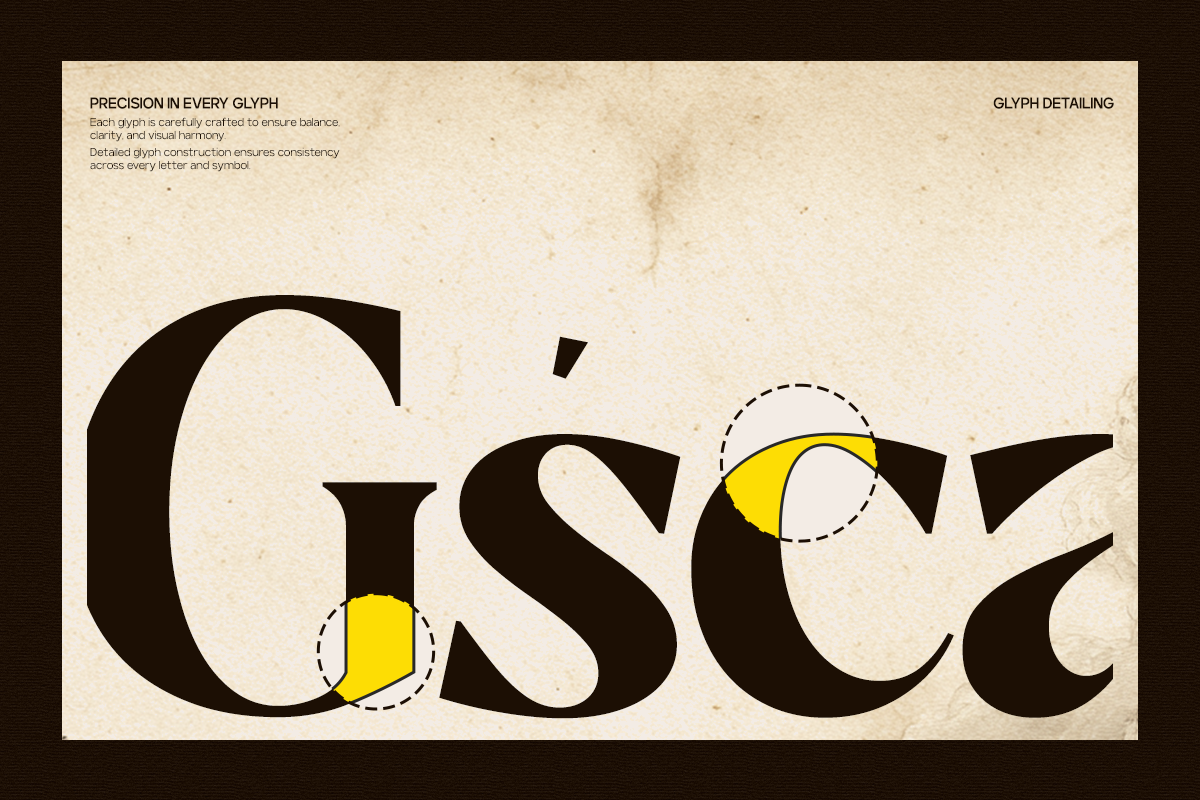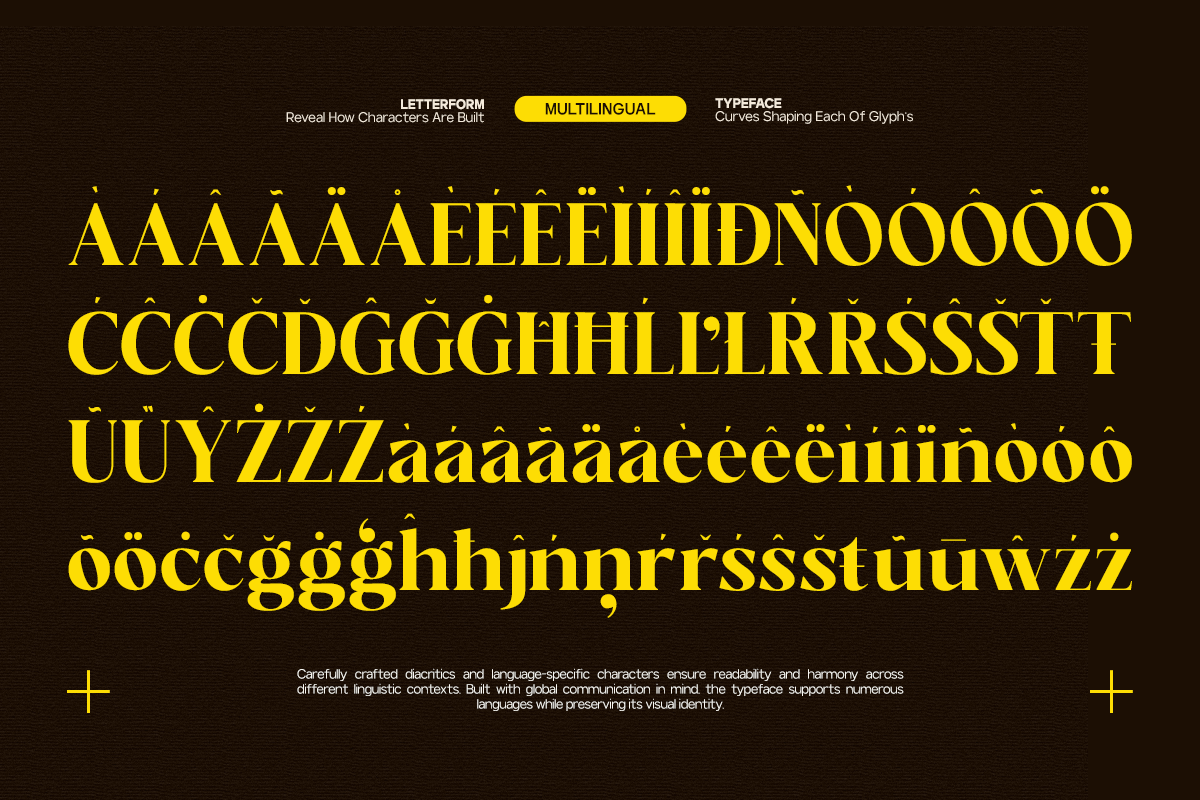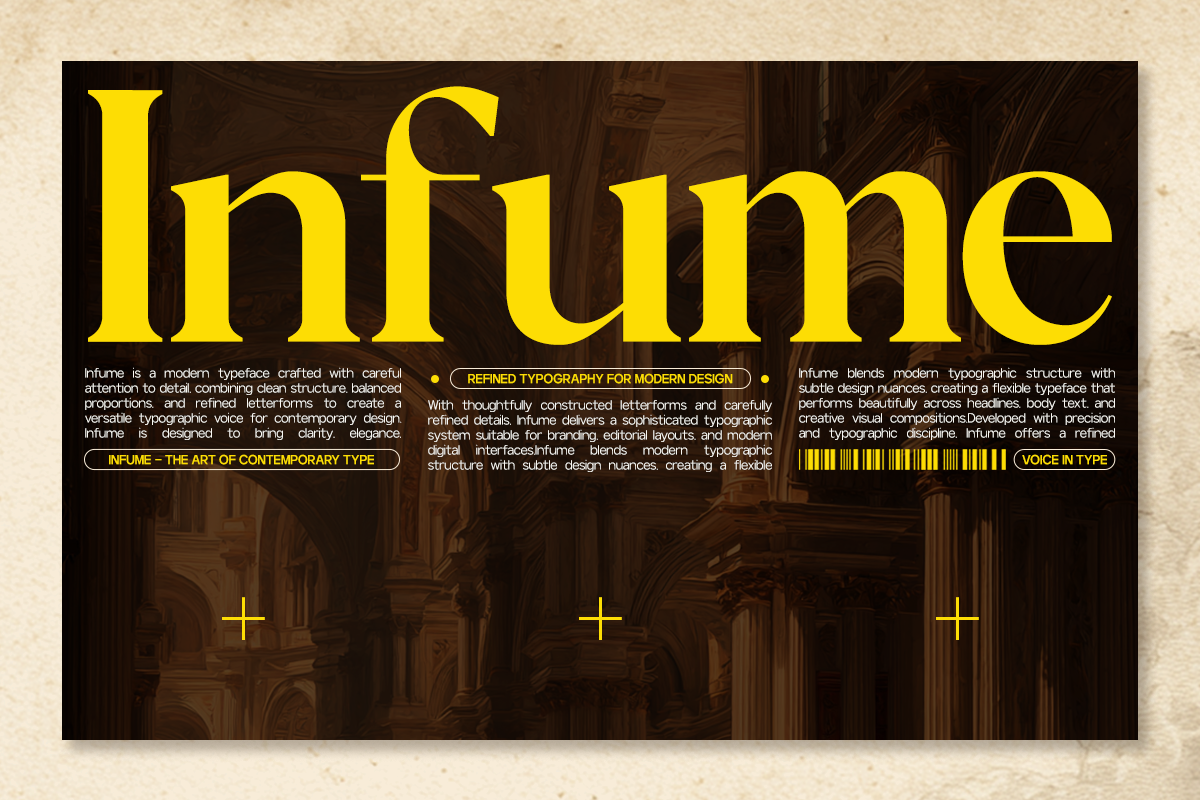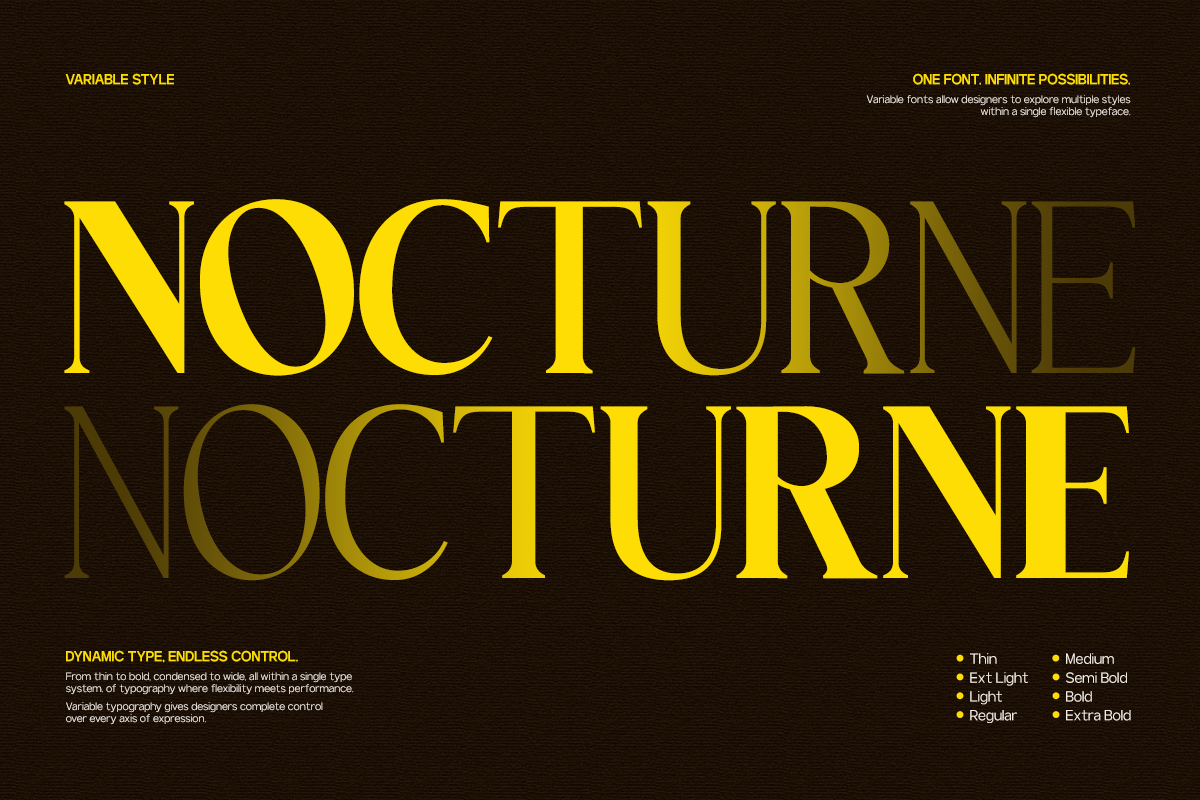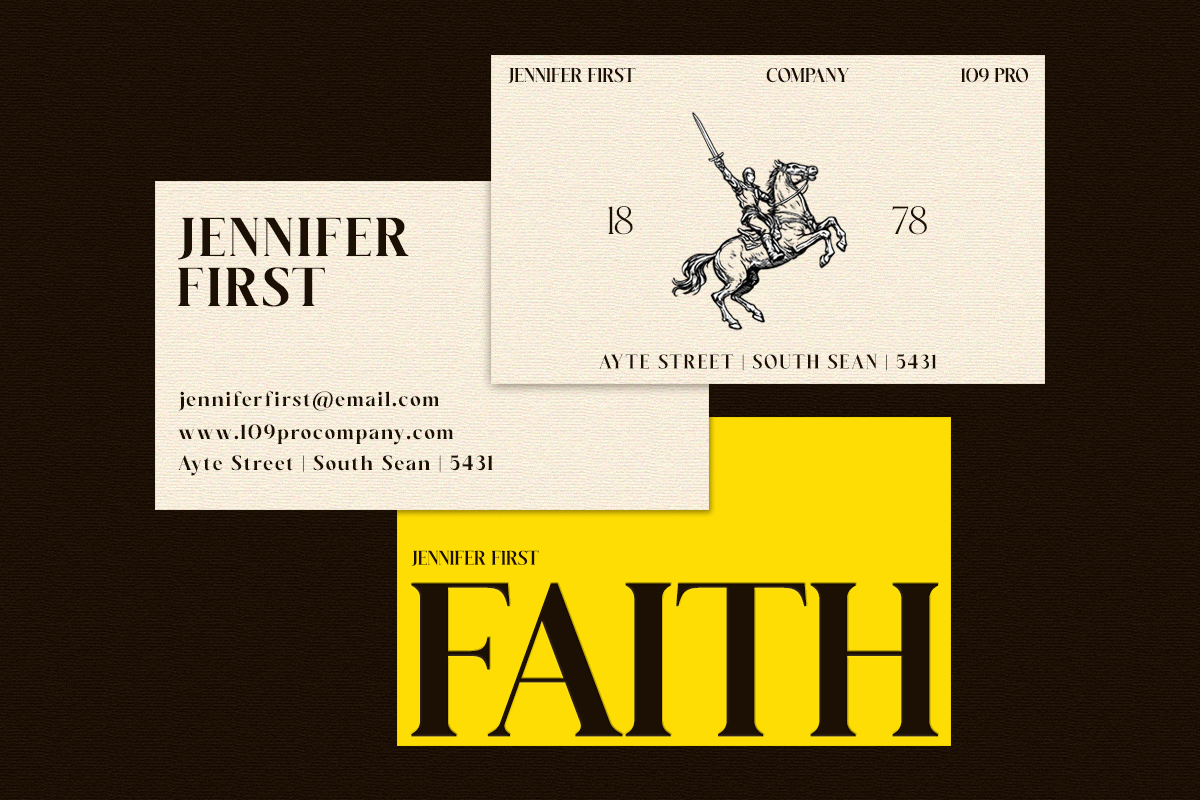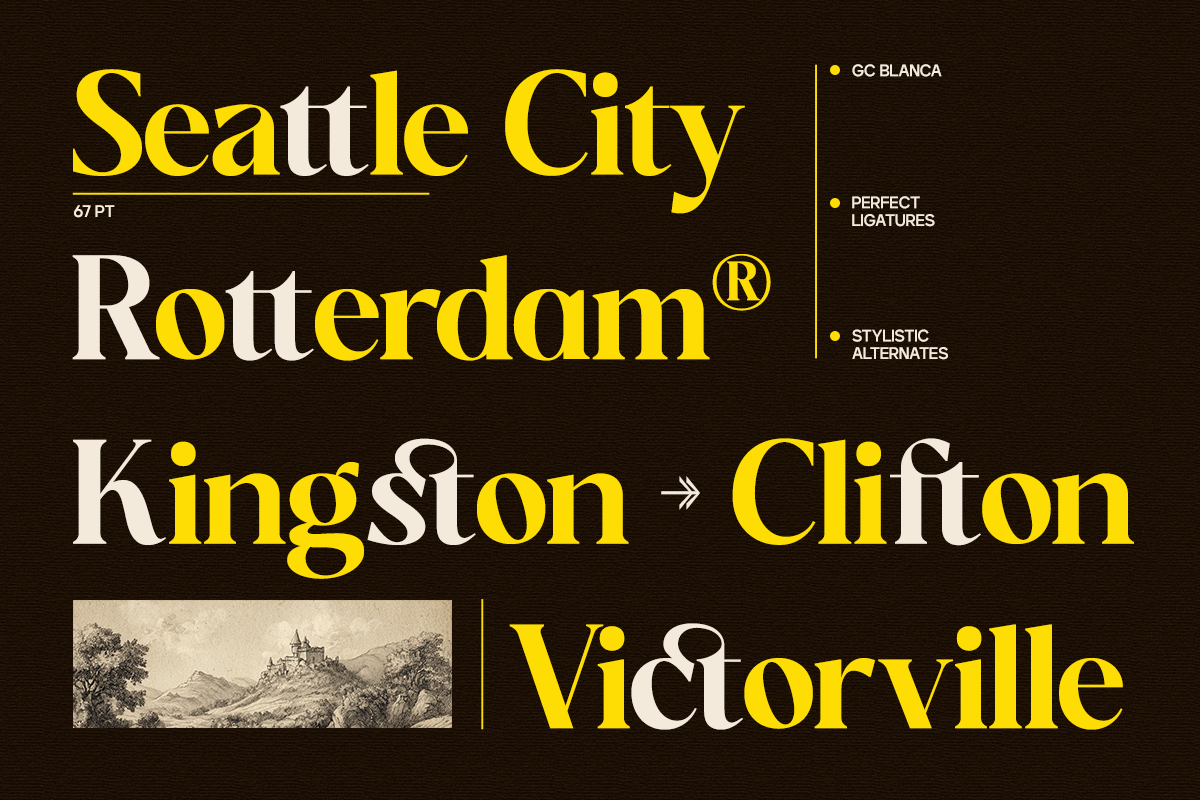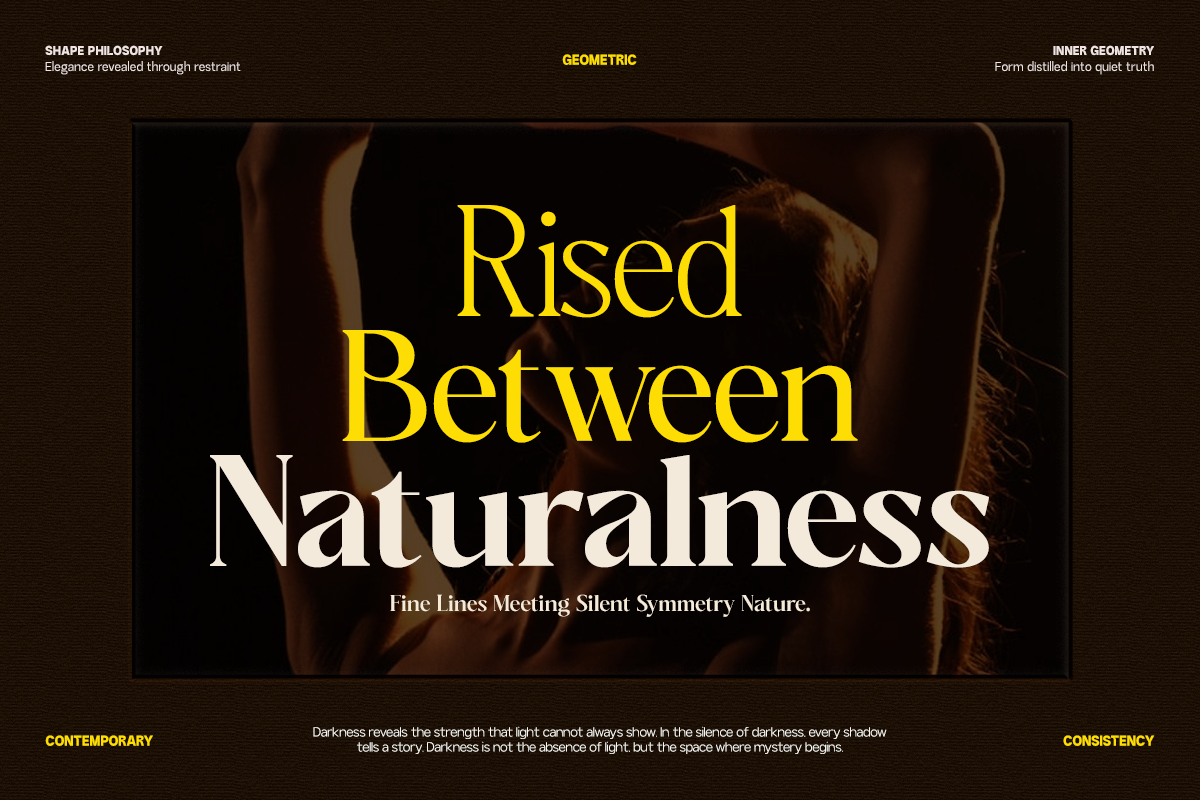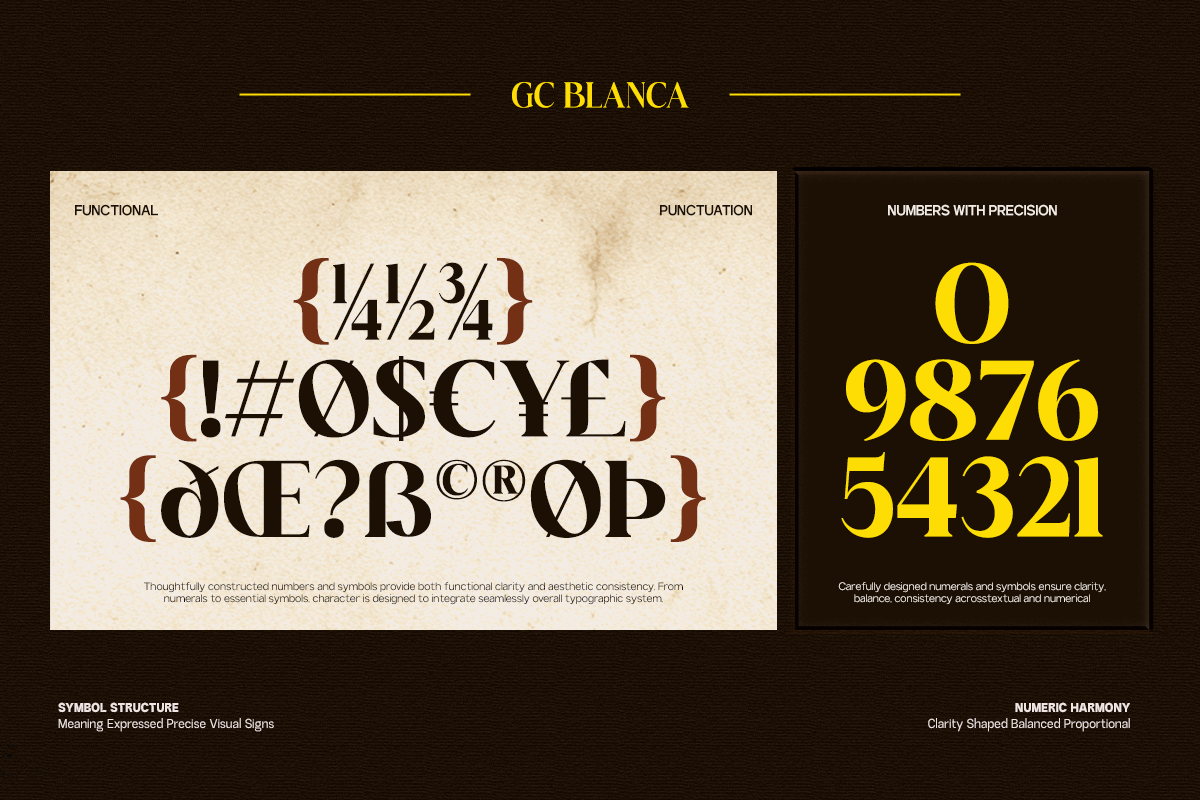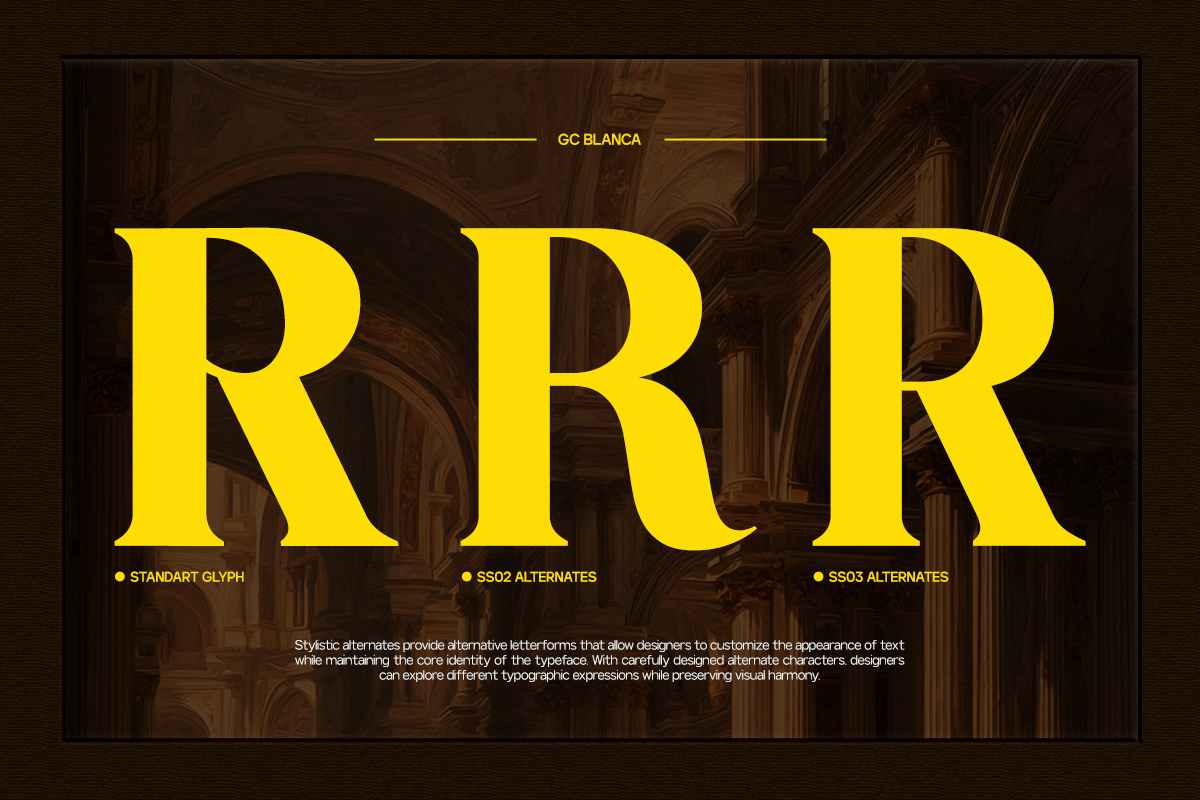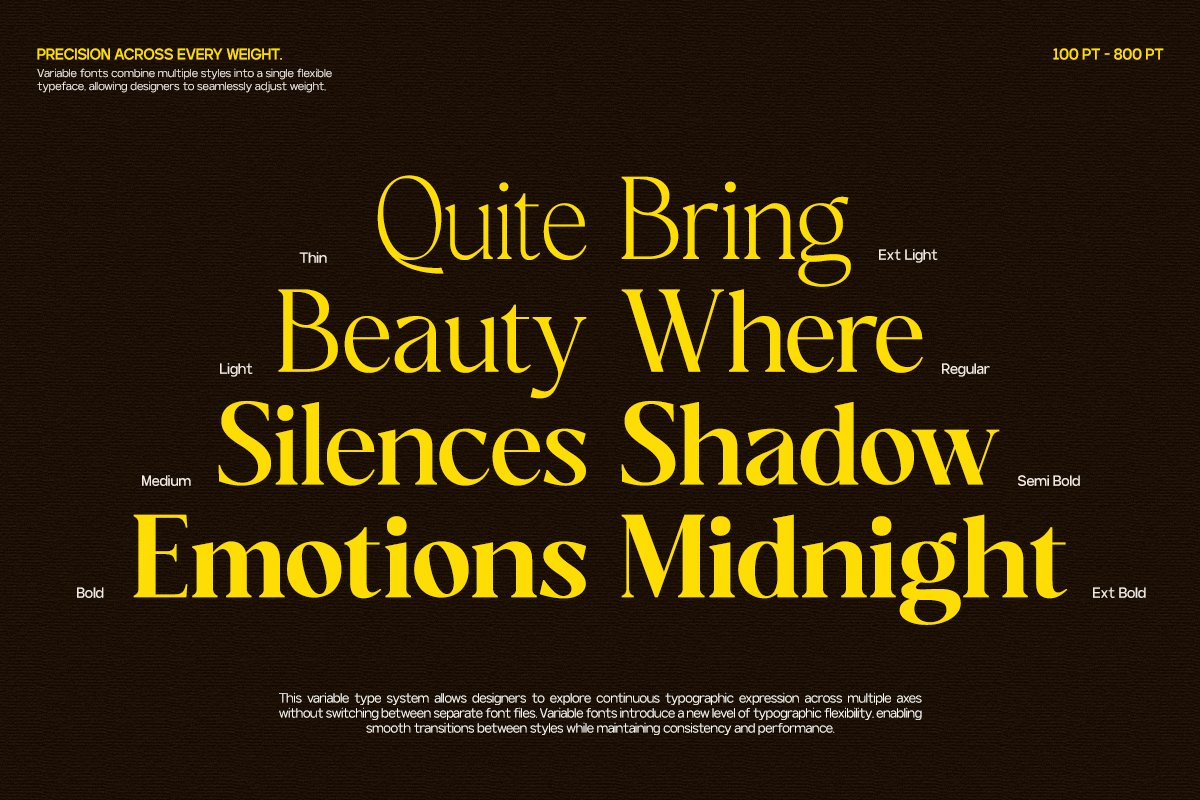
GC Blanca – Serif Elegant Character
GC Blanca – Serif Elegant Character is a refined serif typeface that embodies timeless elegance and expressive sophistication. Designed with balanced proportions, graceful curves, and high-contrast strokes, Blanca delivers a luxurious typographic voice that feels both classic and contemporary.
With its elegant structure and smooth transitions—as seen in its flowing letterforms and refined details—GC Blanca creates a sense of harmony and visual beauty. The presence of delicate ligatures and carefully crafted shapes enhances its expressive character, making it ideal for designs that demand elegance and emotional depth.
Crafted to perform beautifully across digital and print media, GC Blanca shines in editorial layouts, fashion branding, luxury packaging, and modern visual compositions. Its versatile weight range allows designers to explore hierarchy—from light, airy text to bold, impactful headlines—while maintaining consistency and readability.
Whether used for sophisticated headlines, refined branding, or artistic layouts, GC Blanca brings elegance, clarity, and expressive serif character to your typography.
Variable Font (Thin – Extra Bold)
Elegant Serif Construction
Refined Ligatures
Multilingual Support (170+ Languages)
GC Blanca — where serif structure meets elegant expression.